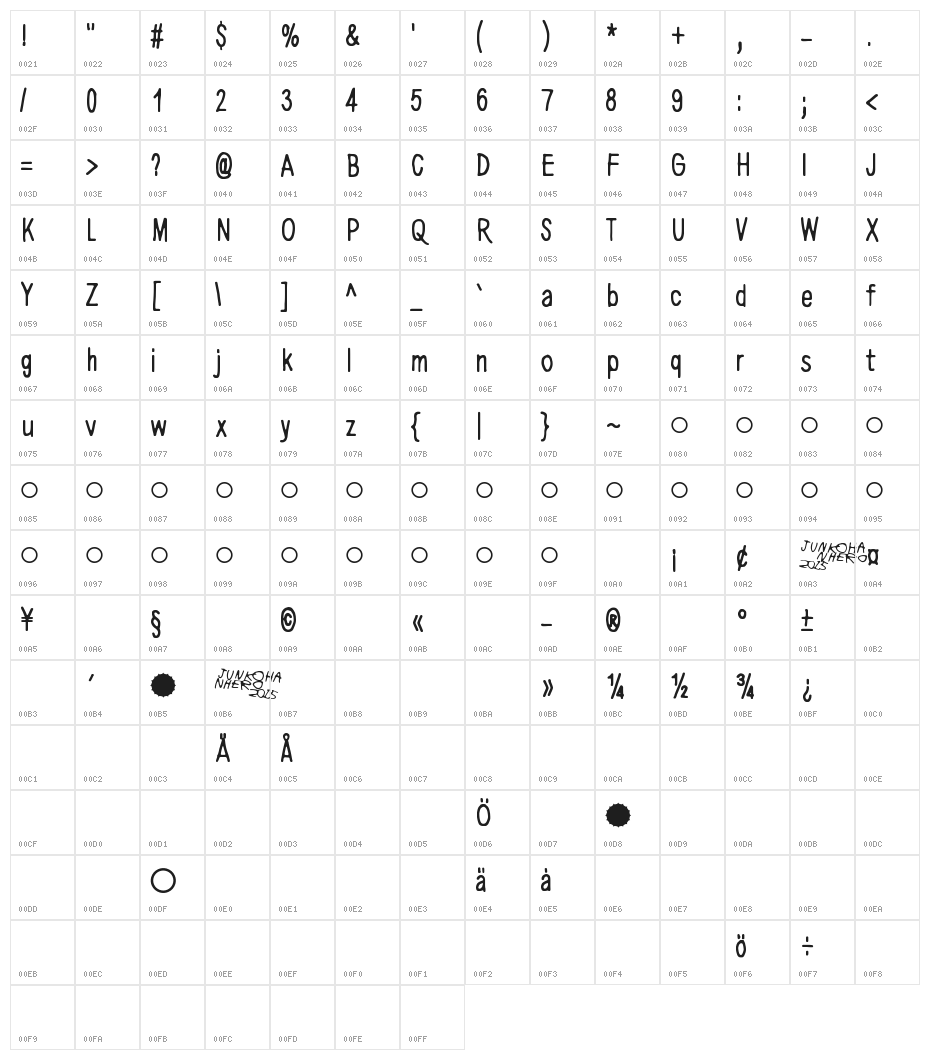
Aurinko Font
Aurinko Description
This font features a playful and informal style with rounded edges and a hand-drawn appearance. The characters are slightly irregular, giving it a whimsical and approachable feel. The uppercase and lowercase letters maintain a consistent height, contributing to a cohesive look. The numbers and special characters are designed to match the overall style, ensuring uniformity across all text elements. This font is ideal for projects that require a friendly and casual tone, such as children's books, greeting cards, or informal branding.
| Use Case | Headlines, Informal text, Branding |
| Proposed Projects | Ideal for children's books, greeting cards, informal branding, and playful designs. |